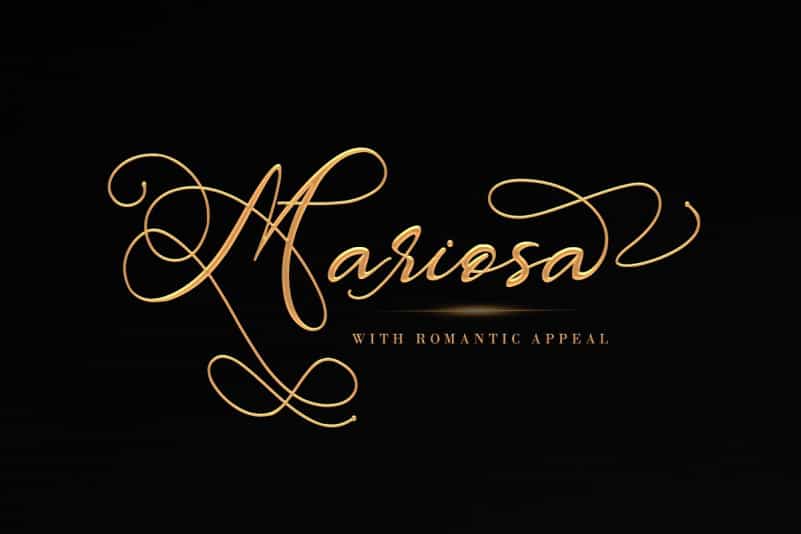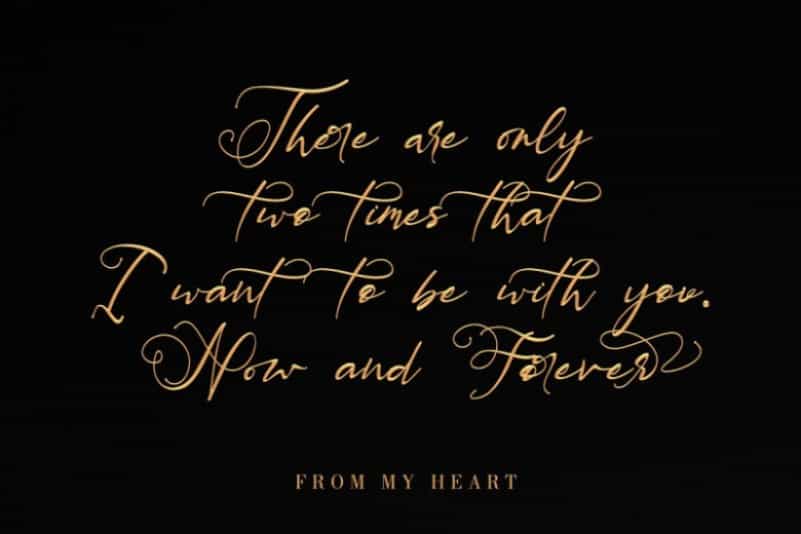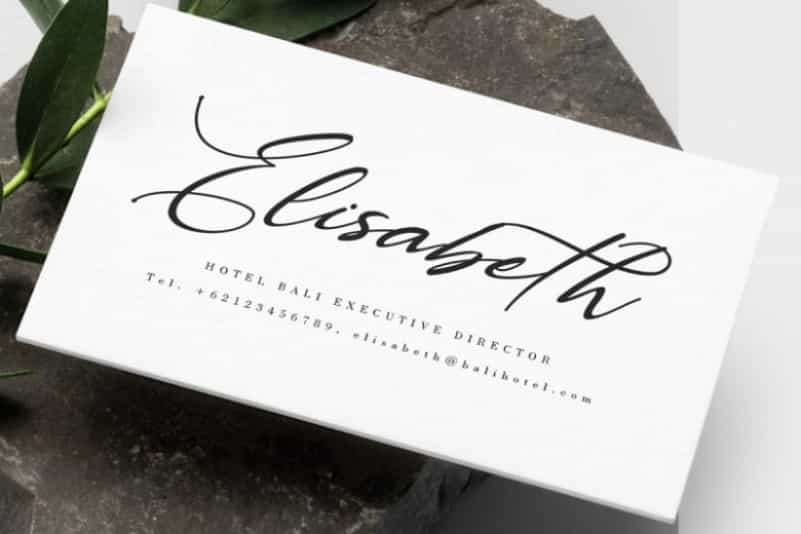
Mariosa is a beautiful font with a touch of romance; this font is for anyone who is looking for an elegant and appropriately contemporary calligraphy script. Be impressed by its dynamic strokes. It is mostly preferred for logos & branding, invitation, stationery, wedding designs, social media posts, advertisements, product packaging, poster, product designs, label, photography, watermark, special events or anything, quotes, fashion, etc.